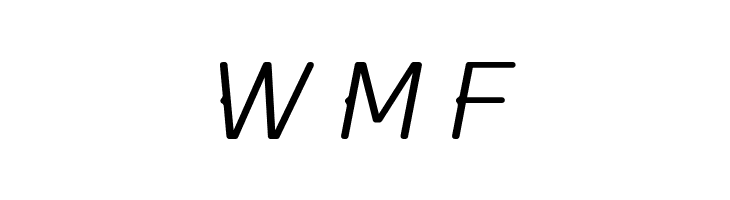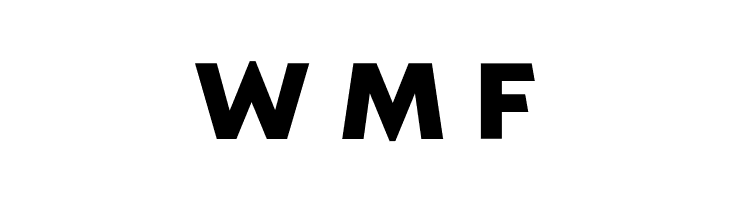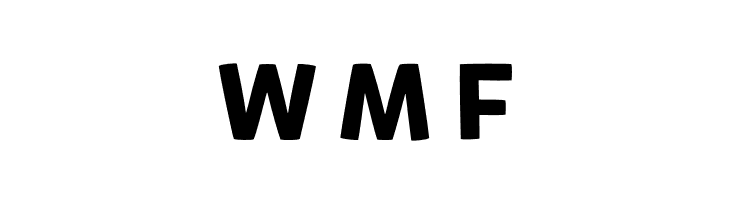
A playful, bold serif font with a comic-like, hand-drawn style.
A bold, playful font with a hand-drawn, three-dimensional style.
A bold, distressed font with a rebellious, hand-crafted look.
A playful, hand-drawn font with bold, irregular strokes and a casual style.
A bold, ornate Blackletter font with intricate, angular letterforms.
A bold blackletter font with heavy strokes and angular forms, exuding classic elegance.
A bold, gothic-style font with blackletter influences and dramatic strokes.
An ornate decorative font with intricate floral designs on uppercase letters.
An elegant italic font with high contrast and a classic style.
A bold, cursive font with elegant, flowing letterforms and sharp serifs.
A vintage serif font with elegant curves and sharp serifs.
A classic serif font with calligraphic influences and elegant, angular serifs.
A classic serif font with sharp, angular serifs and a formal, elegant style.
A clean, geometric typeface with a modern aesthetic and consistent stroke width.
A modern, geometric oblique font with clean lines and a dynamic style.
A bold, geometric oblique font with a modern and dynamic style.
A modern, geometric font with a clean and minimalistic design.
A casual, playful handwritten font with irregular strokes and a friendly appearance.
A bold, modern font with clean lines and strong presence.
A modern, geometric sans-serif font with uniform strokes and clear characters.
A bold, rounded font with smooth curves and consistent weight.
A bold, rounded font with a playful and friendly style.
A bold, playful font with rounded edges and strong presence.
A bold, lively script font with flowing, handwritten letterforms.
A bold, distressed font with a rugged, urban aesthetic.
A bold, distressed font with a vintage, textured appearance.
A playful, bold serif font with a comic-like style.
A bold, distressed font with a vintage, rugged appearance.